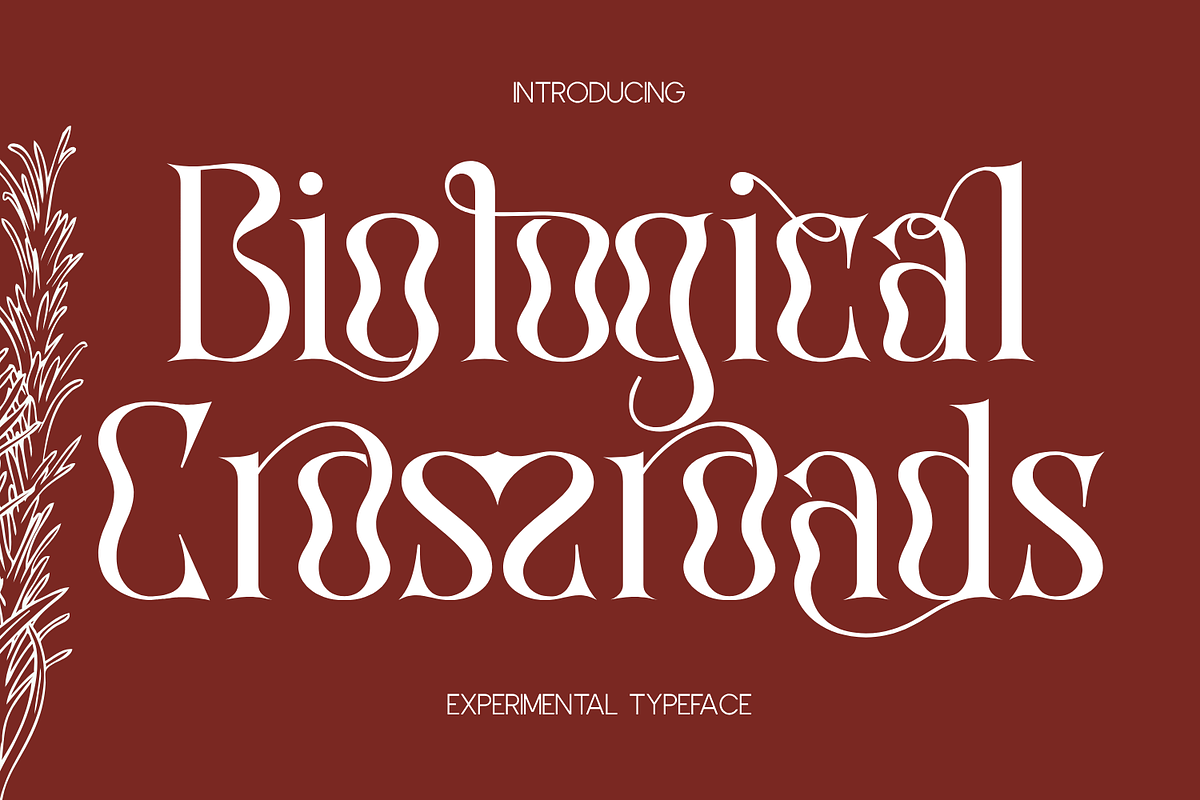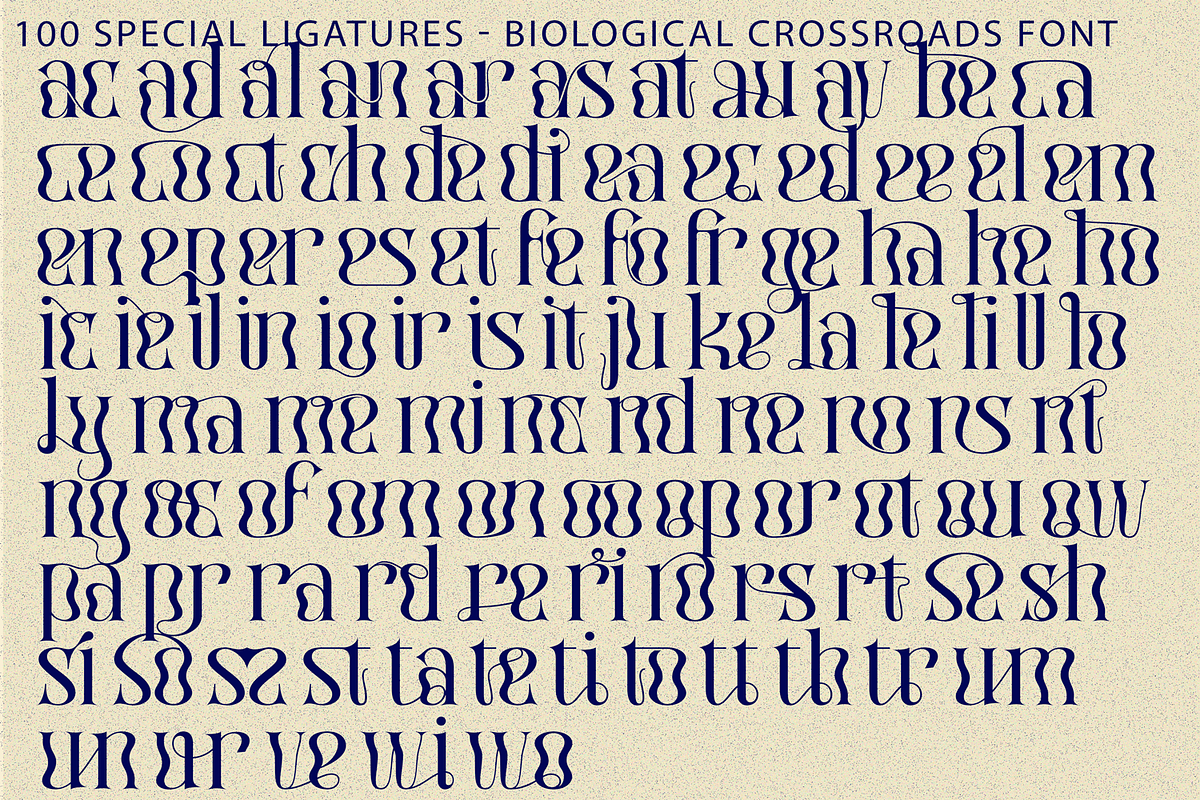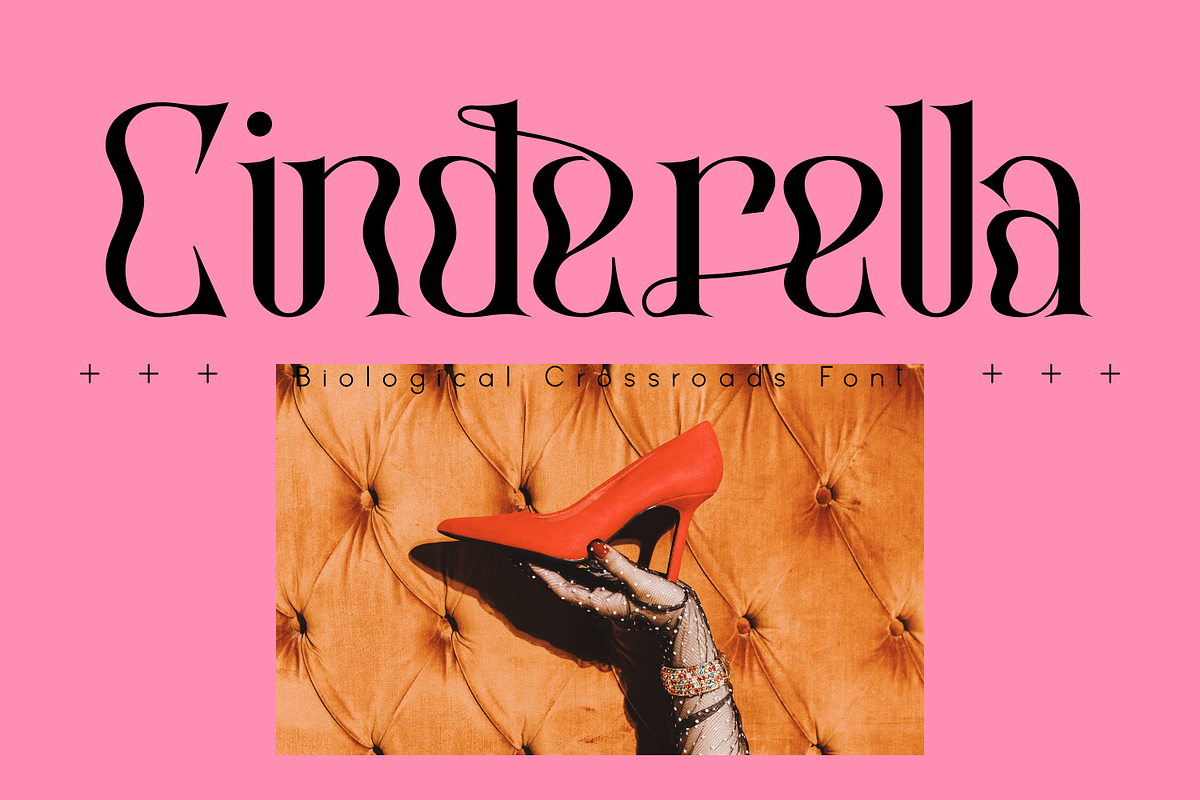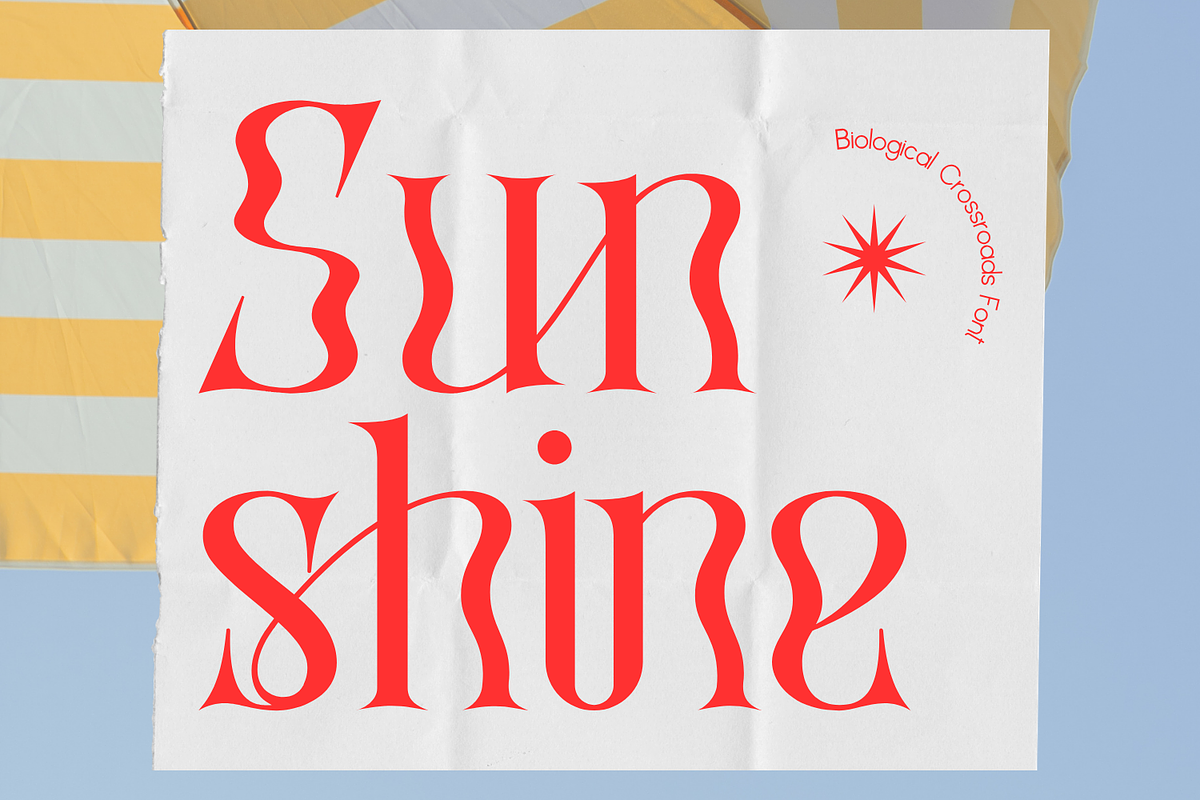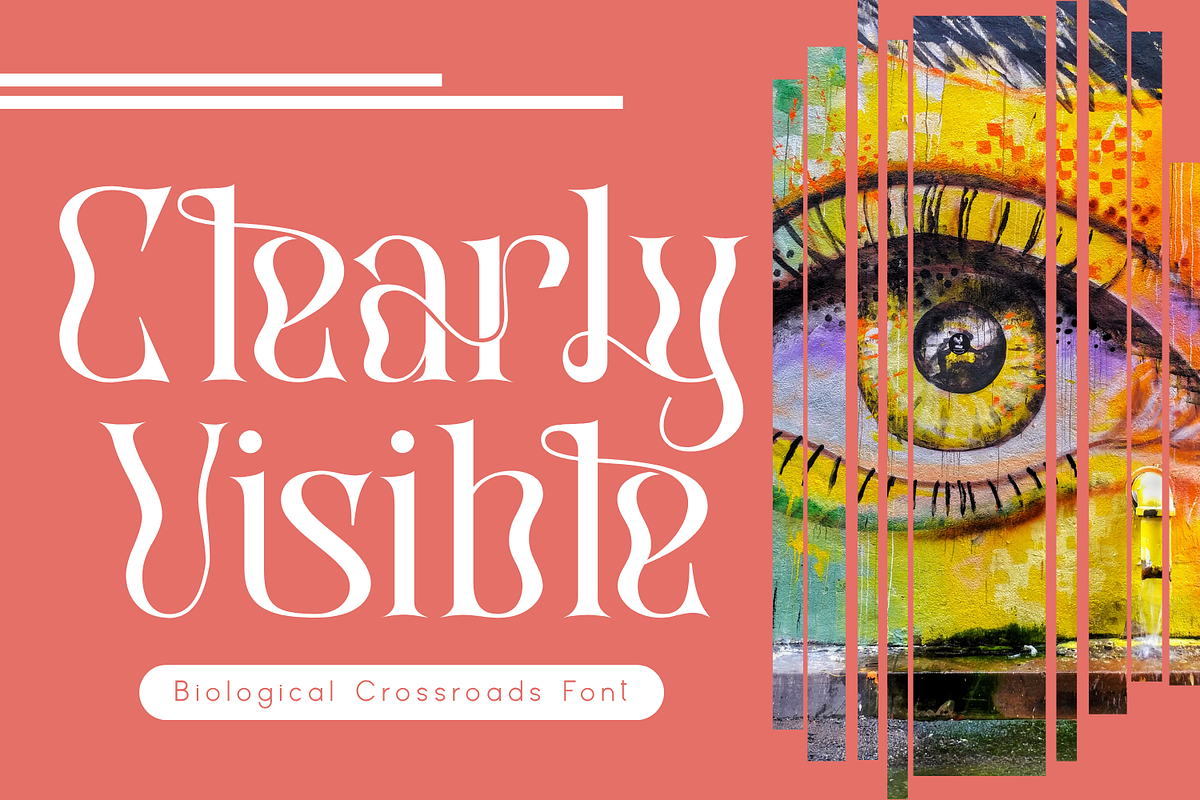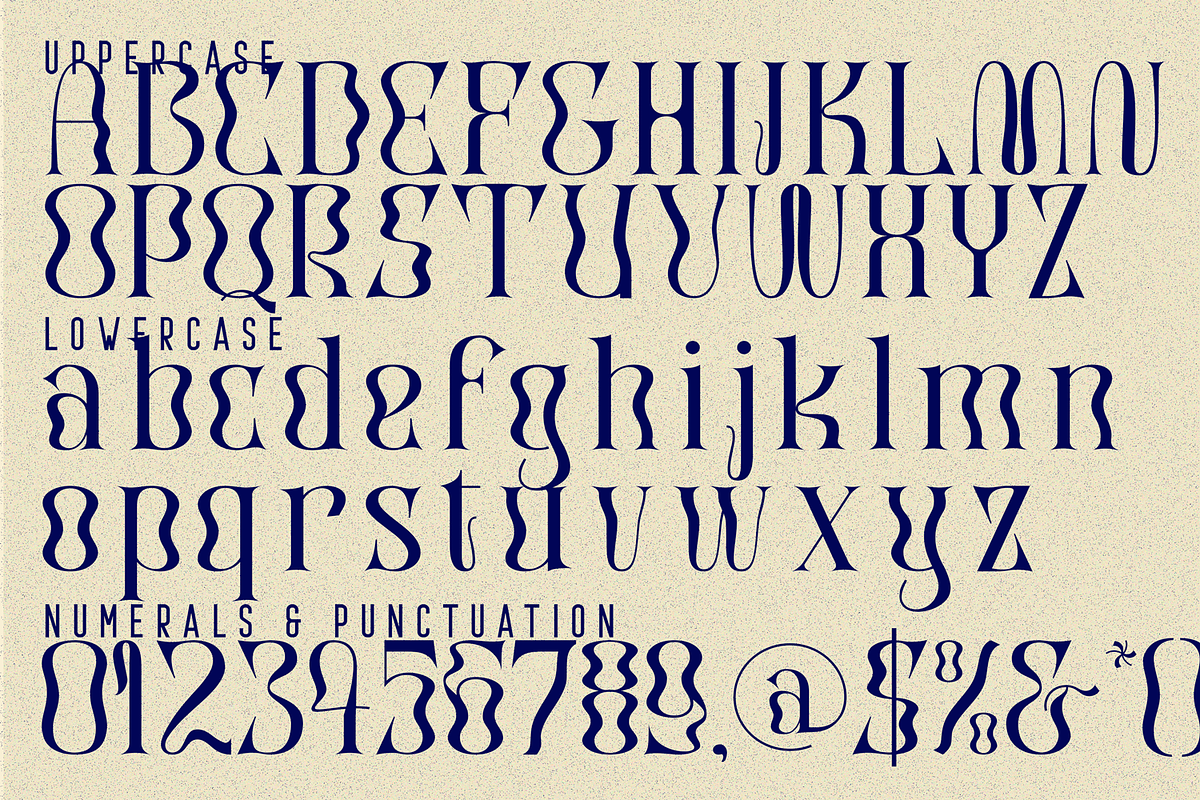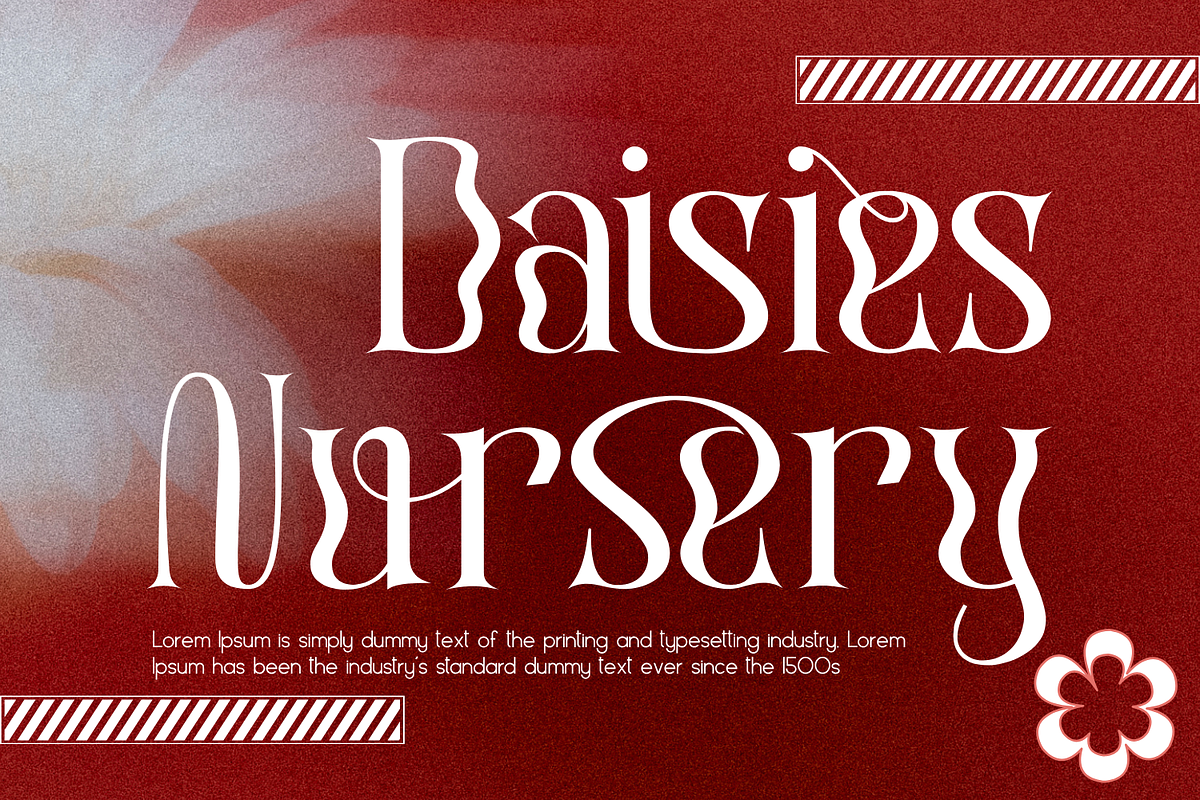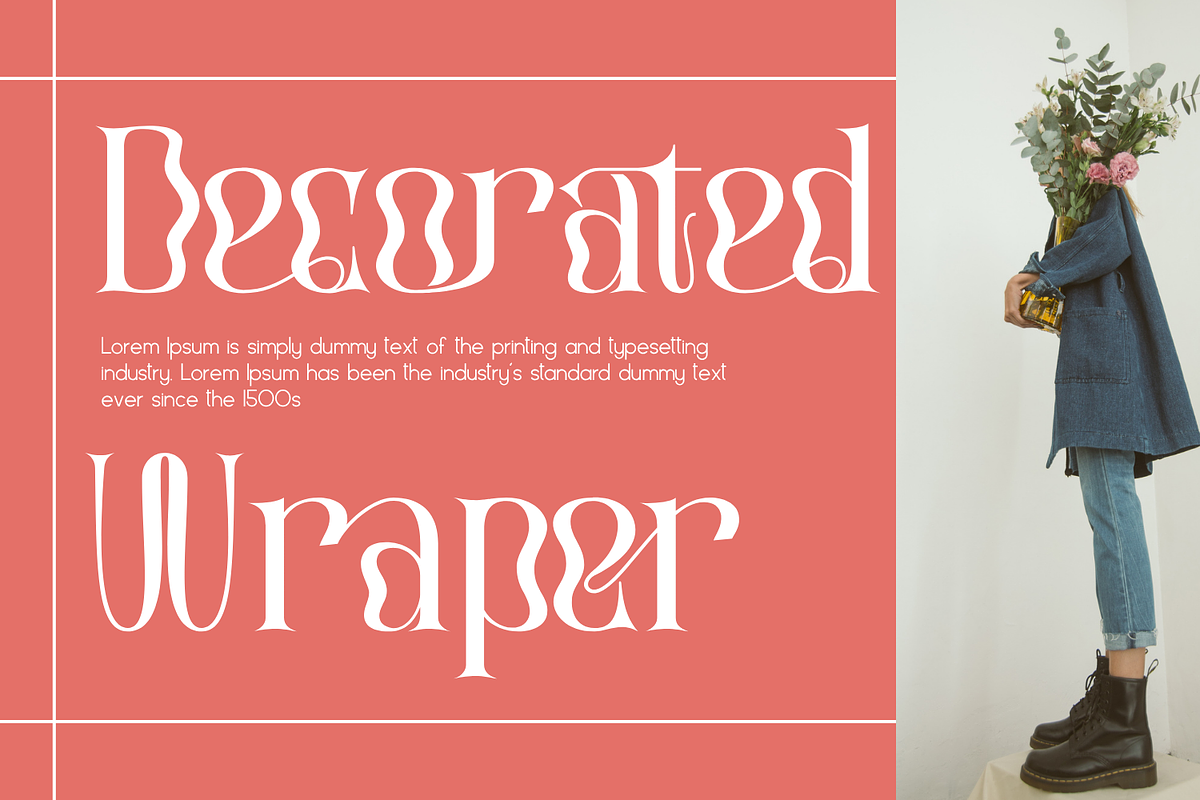
Biological Crossroads - Psychedelic
Biological Crossroads - Psychedelic Font – A Surreal, Liquid Display Font, an avant-garde liquid display font that effortlessly bends the rules of traditional design. Blending classic high-contrast serif structures with surreal, melting distortions, this typeface is a true visual trip. Biological Crossroads is defined by its organic, flowing letterforms that appear to drip, ripple, and morph like liquid. The trippy, wavy contours create a captivating psychedelic effect, making your text look as though it's breathing or viewed through a distorted lens. Despite its heavy distortion, it maintains an elegant balance between extremely thin strokes and bold, bulbous curves.
🔤Features:
- Uppercase & Lowercase Letters
- Around 100 Special Ligatures & Alternates
- Accented Characters for multilingual support
🔤About 100 ligatures combined with Stylistic Alternates Font:
ac ad al an ar as at au av be ca ce ch co ct de di ea ec ed ee el em en ep er es et fe fo fr ge ha he hi ho ie ic il in io ir is it ju ke la le li ll lo ly ma me mi nc nd ne ng no nt ns oc of om on oo op or ot ou ow pa pr ra rd re ri ro rs rt se sh si so ss st ta te th ti to tr tt um un ur ve wi wo